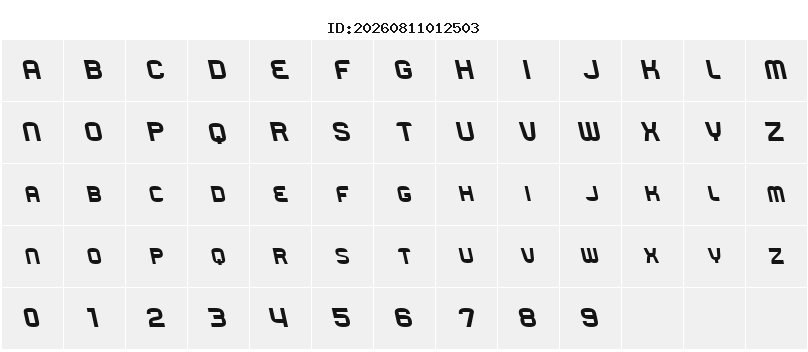
• Font Name: Rueck Left
• Designer: Peter Wiegel
• Manufacturer: Peter Wiegel
About Rueck Left.ttf
Rueck Left.ttf is a modern, elegant sans-serif font designed for ultimate readability and visual harmony. Perfect for branding, headlines, web design, and print materials.